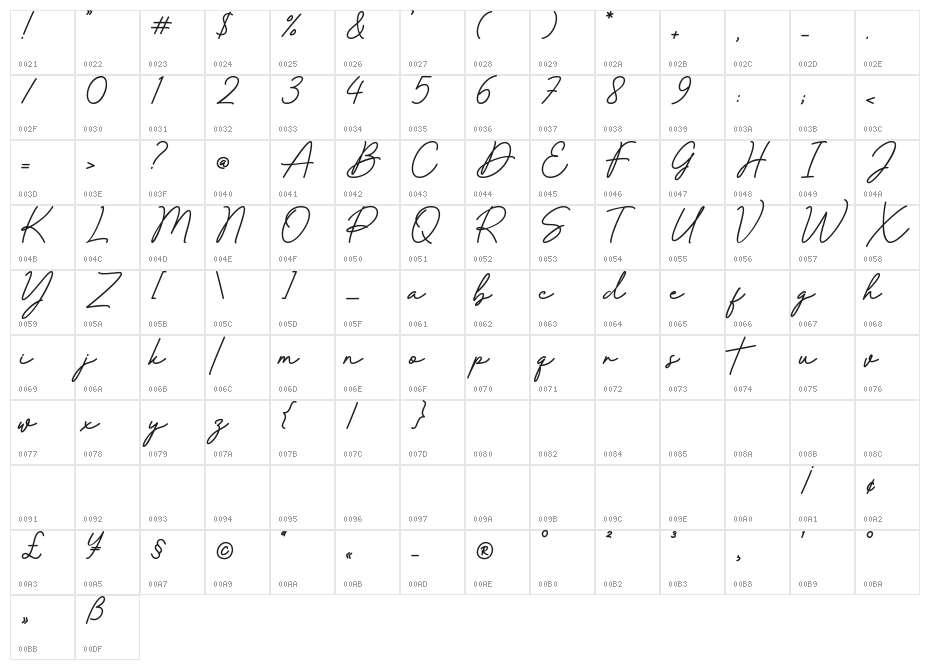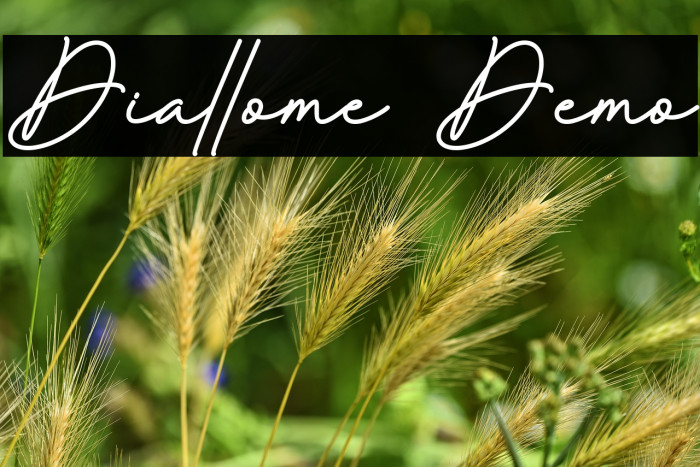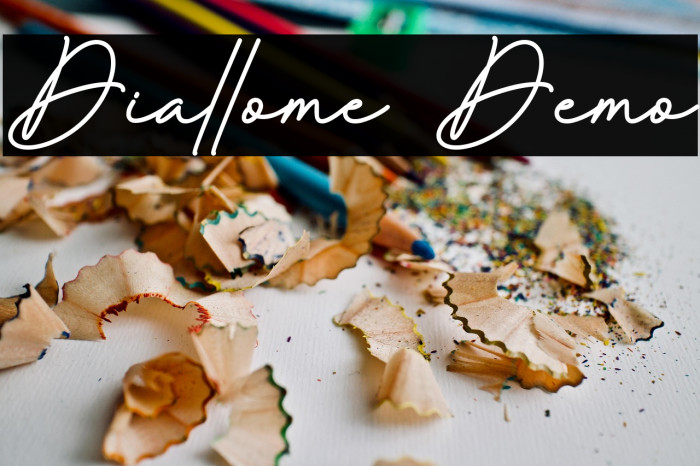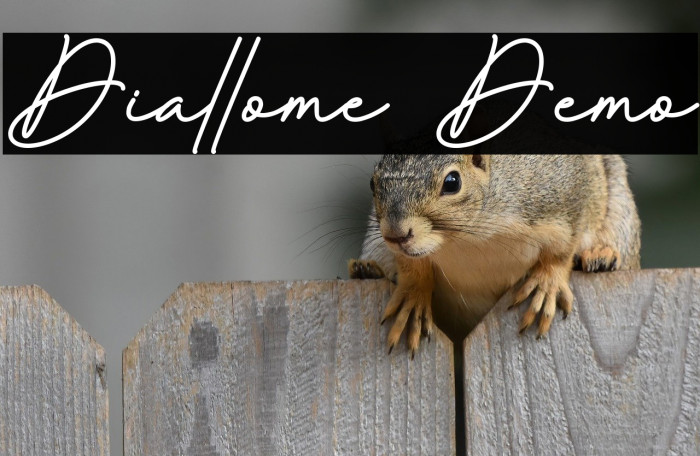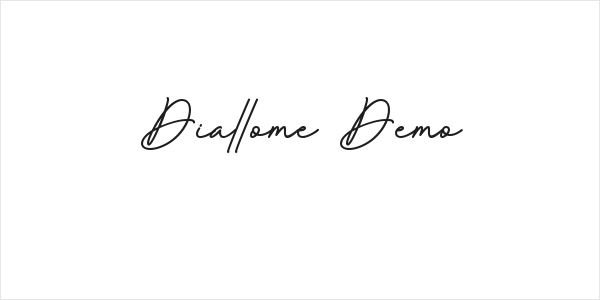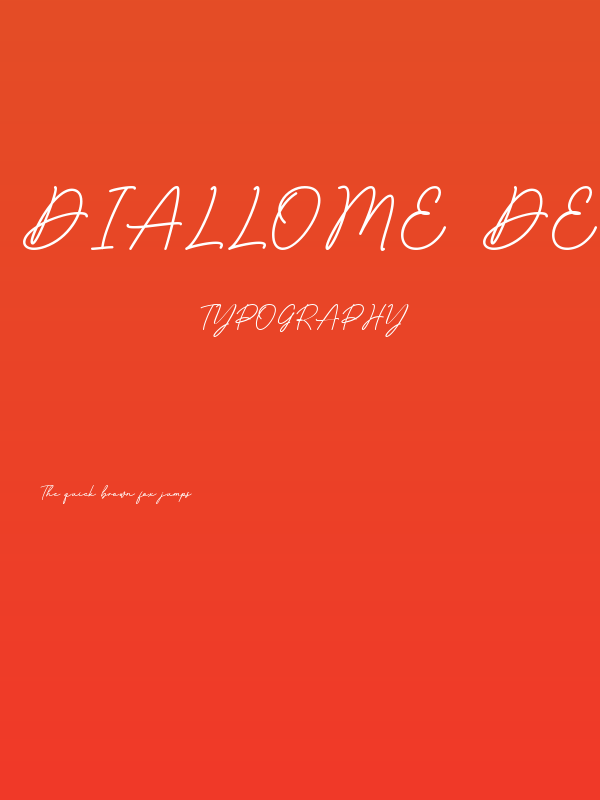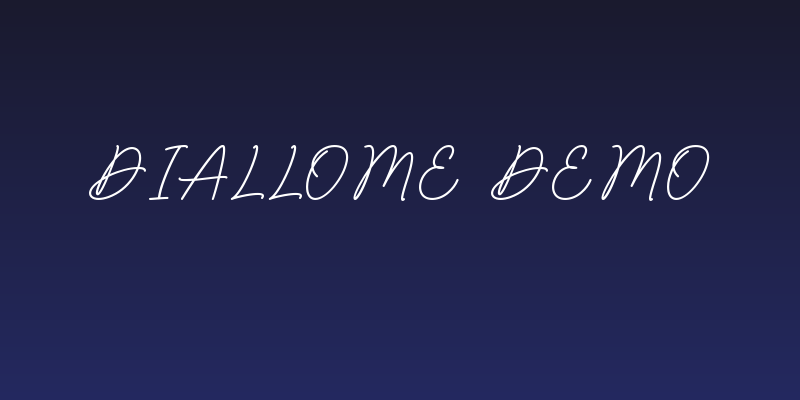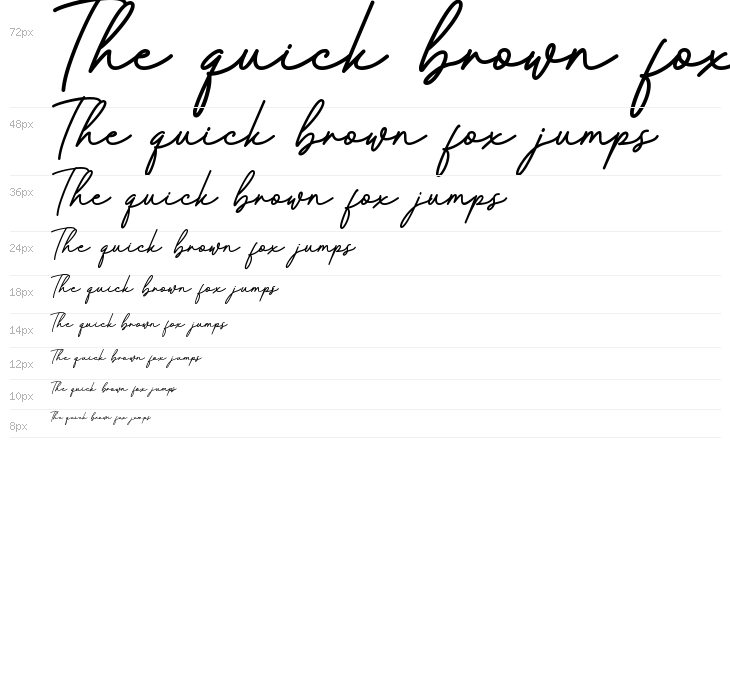
Diallome Demo Font
Diallome Demo Description
This font exudes a casual yet elegant handwritten style, characterized by its fluid and continuous strokes that mimic natural handwriting. The uppercase letters maintain a consistent height, while the lowercase letters exhibit a slight slant, adding to the overall dynamic appearance. The numerals are clear and legible, complementing the alphabet with their smooth curves. Special characters are crafted with the same attention to detail, ensuring they blend seamlessly with the rest of the font. The overall design is both approachable and sophisticated, making it versatile for various applications.